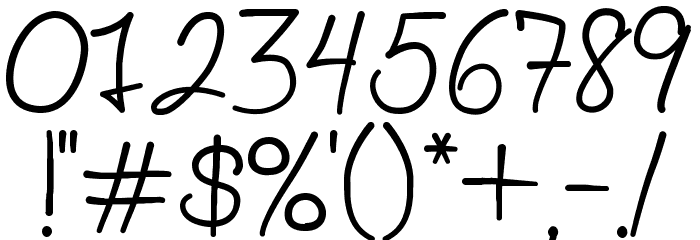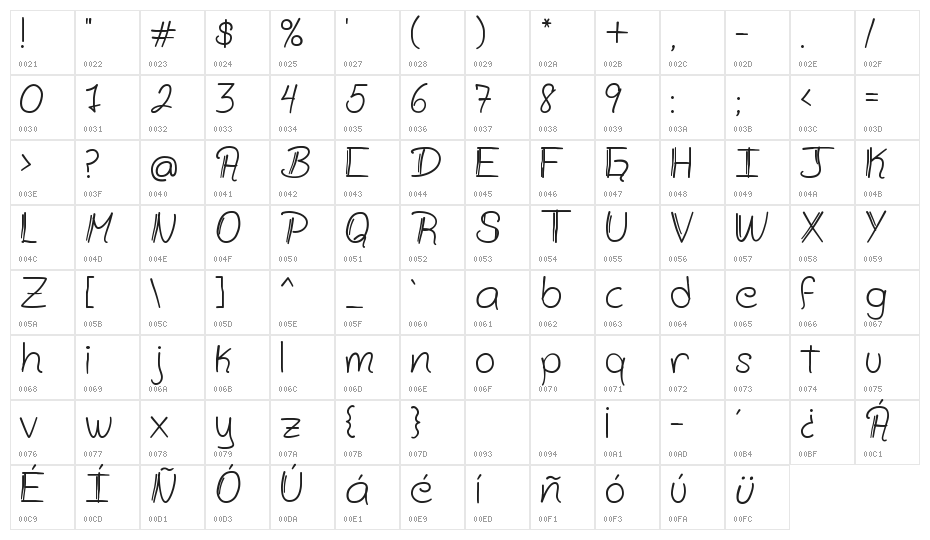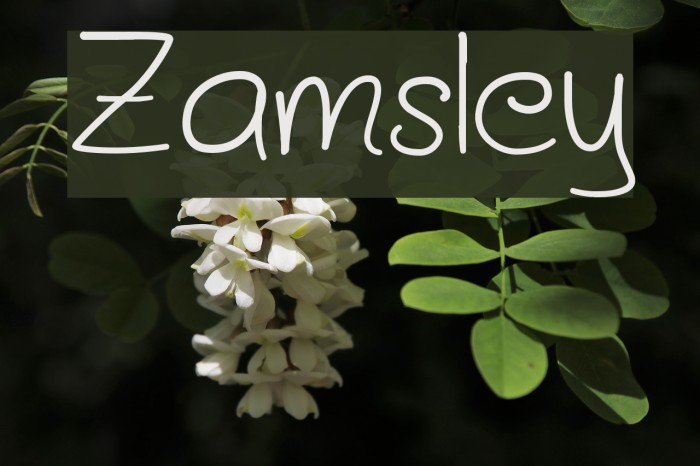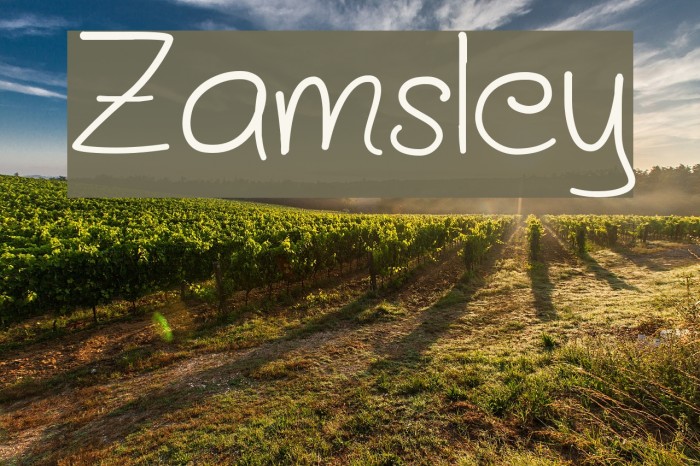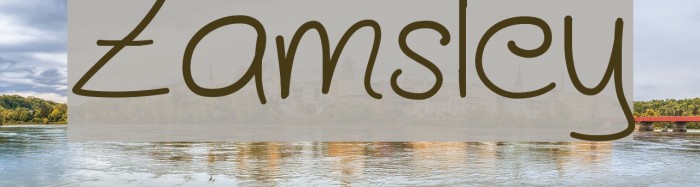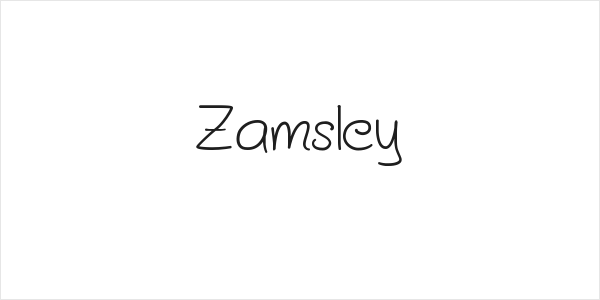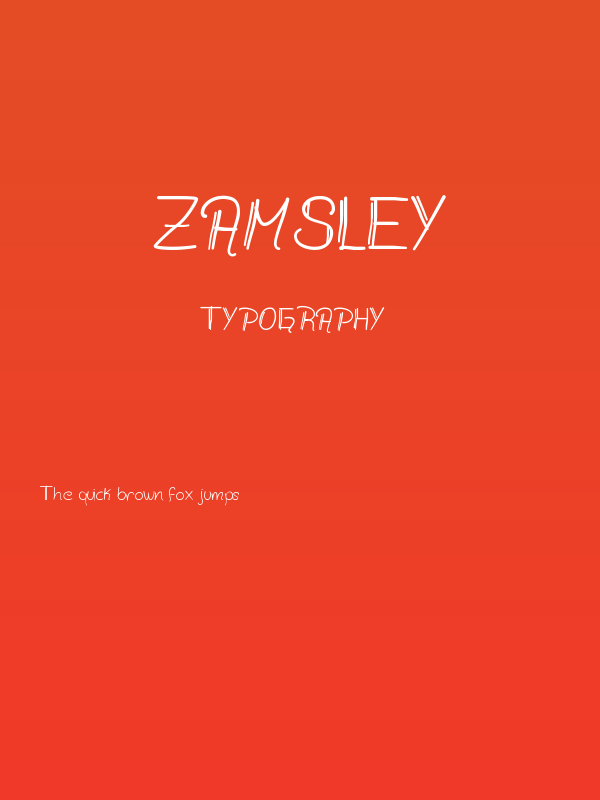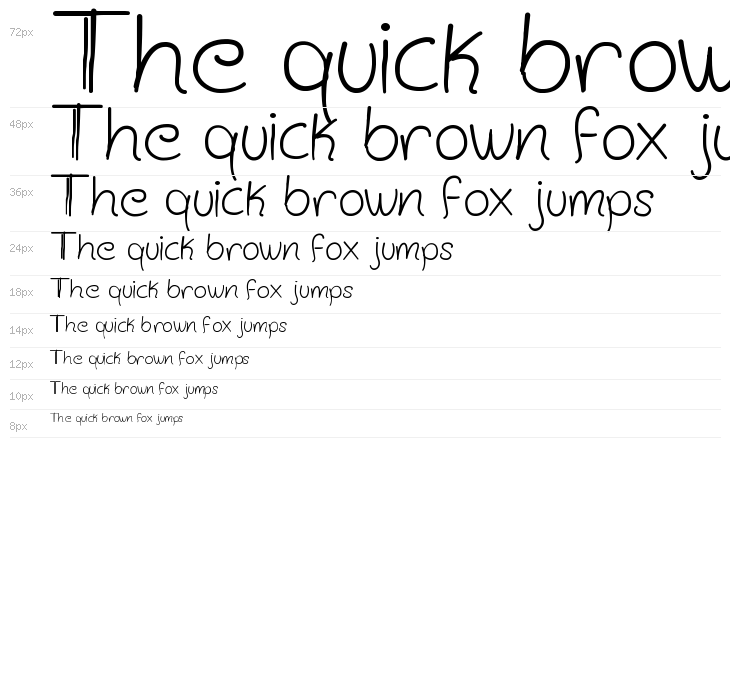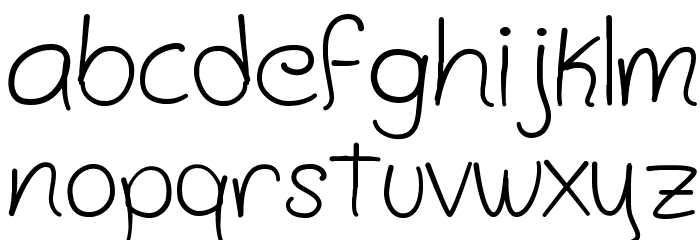
Zamsley Font
Zamsley Description
This font features a playful and whimsical style with a handwritten appearance. The uppercase letters have a unique, slightly tilted design with elongated strokes, giving them a dynamic and lively feel. The lowercase letters maintain a consistent flow, with rounded edges and a casual demeanor. Numbers are bold and slightly exaggerated, enhancing the font's playful nature. Special characters are creatively designed, adding to the overall charm. The font's informal style makes it suitable for projects that require a personal touch or a fun, engaging aesthetic.